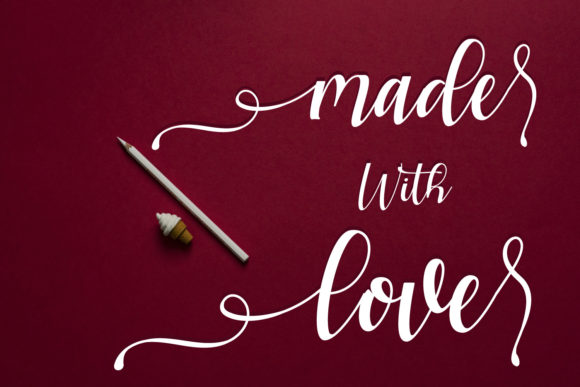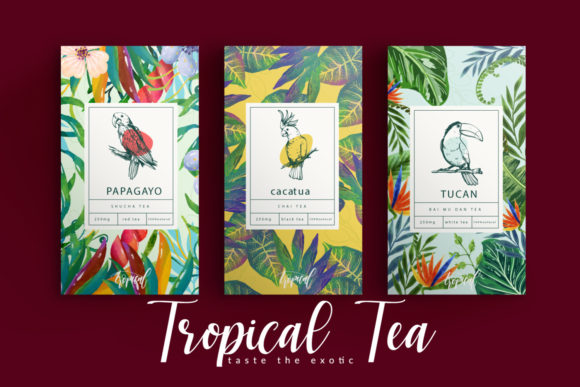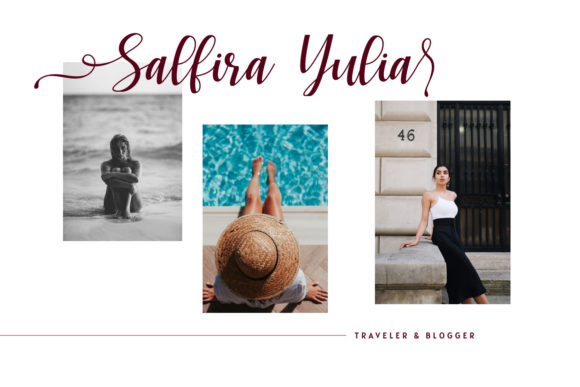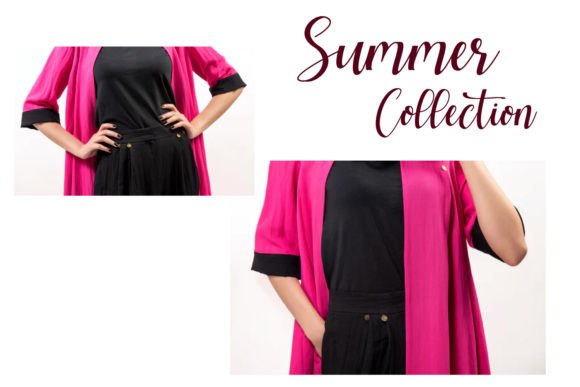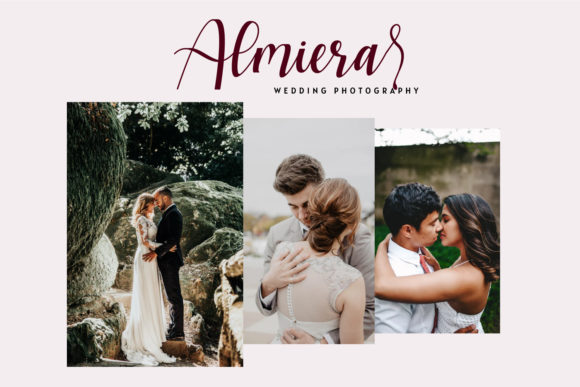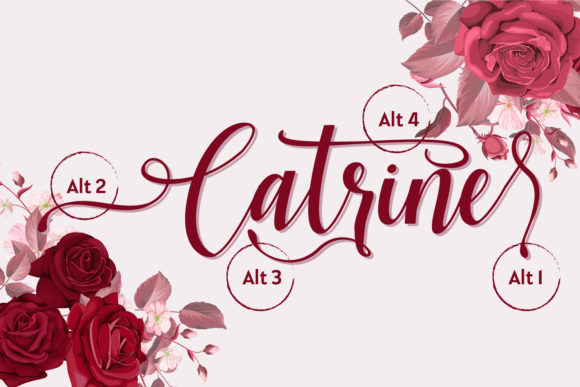
The Quest for the Perfect Handwritten Font: Discovering Catrine
I still remember the design project that led me to Catrine Font. I was working on a wedding invitation suite, and I was determined to find the perfect handwritten font that would make it truly special. Hours turned into days, and days into weeks, as I scrolled through font after font, but none seemed to capture the elegance and whimsy I was looking for. That was until I stumbled upon Catrine – an incredibly distinct, delicate, and timeless handwritten font that instantly stole my heart.
An Honest Review of Catrine Font
So, what makes Catrine so special? Let’s dive into the good stuff and a few quirks I’ve discovered.
What I Love About Catrine ✨
• ✅ Delicate and elegant strokes that add a touch of sophistication to any design
• ✅ Highly legible, even at small sizes – perfect for body text or detailed designs
• ✅ Unique character set that stands out from more traditional fonts
• ✅ Extensive language support, making it versatile for global projects
• ⚠️ Some users might find the font a bit too delicate for very bold or dramatic designs
• ⚠️ Limited availability of condensed or italic versions, which might limit its use in certain typographic arrangements
Exploring Alternatives to Catrine Font
While Catrine is unique, you might also consider these similar fonts for your projects:
• Lovely Sarah: Offers a more whimsical feel with slightly bolder strokes, perfect for children’s books or playful branding.
• Minecrafter: Provides a more rugged, handwritten look suitable for posters or titles that need a bit more grit.
• Alex Brush: Features elegant, swirling lines ideal for luxury brands or sophisticated designs.
• Carolyna Pro: A more versatile option with a range of weights and styles for when you need flexibility.
The Story Behind Catrine Font
Catrine was designed with love and a passion for beautiful handwriting. The creator aimed to craft a font that felt both personal and professional, suitable for a variety of creative projects. Inspired by classic handwritten scripts and a desire to evoke a sense of warmth and elegance, Catrine was born.
Is Catrine suitable for body text? Yes, Catrine is highly legible and can be used for body text, especially in designs where a personal touch is desired.
Does Catrine support multiple languages? Yes, Catrine offers extensive language support, making it a versatile choice for global projects.
Catrine Font has been a game-changer for my designs, offering that perfect blend of elegance and personality. Whether you’re working on wedding invitations, business cards, or any project that needs a handwritten touch, Catrine is definitely worth exploring. Its unique character and versatility make it a valuable addition to any designer’s toolkit.